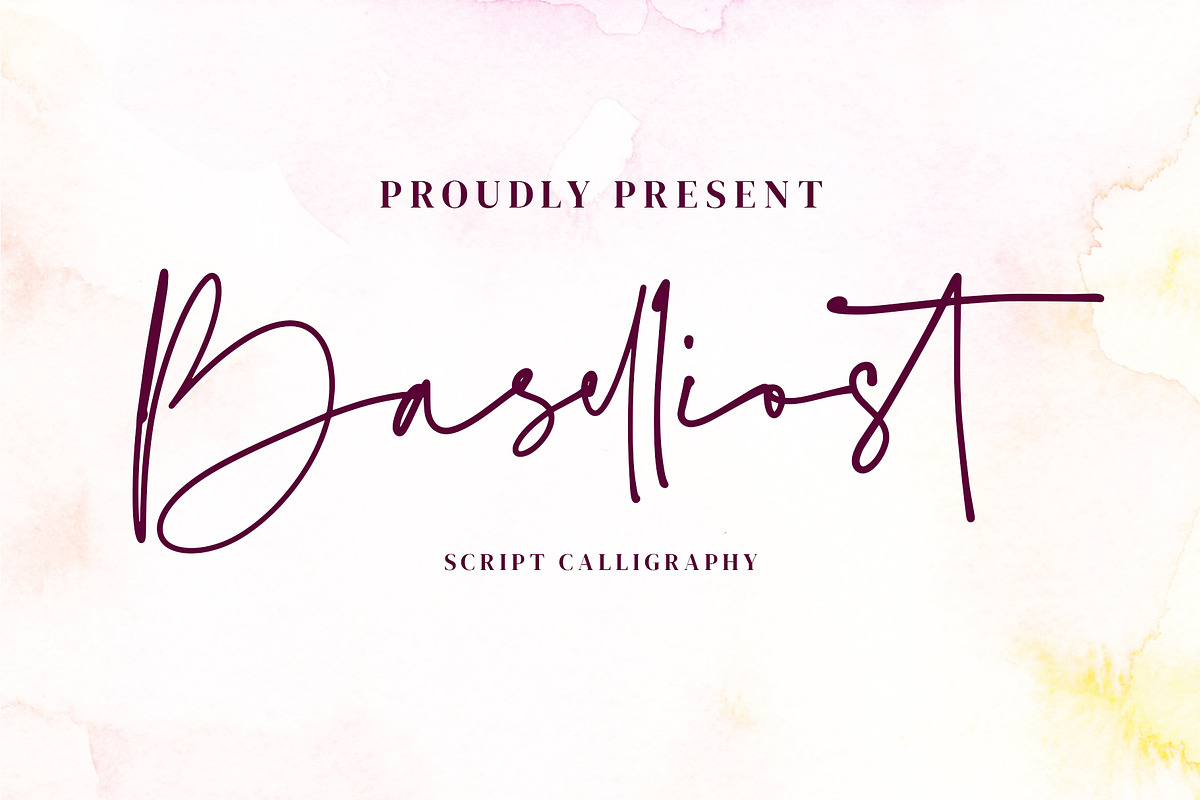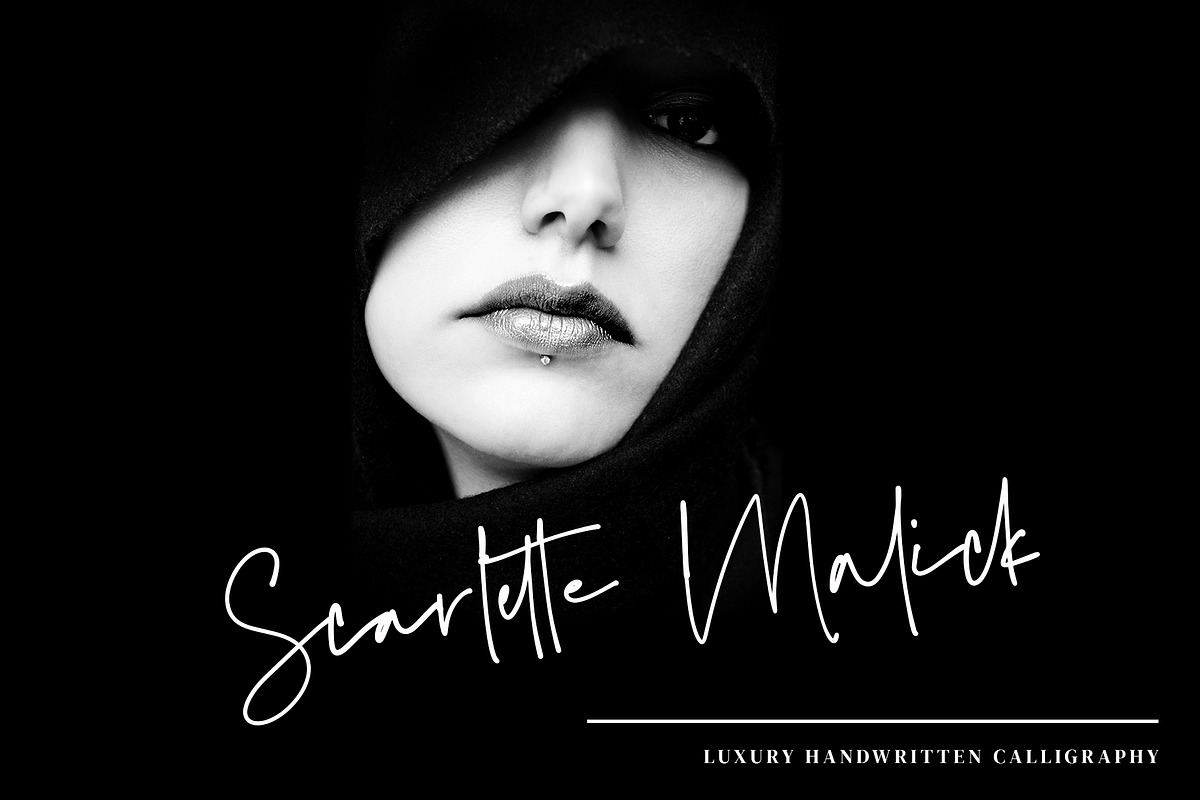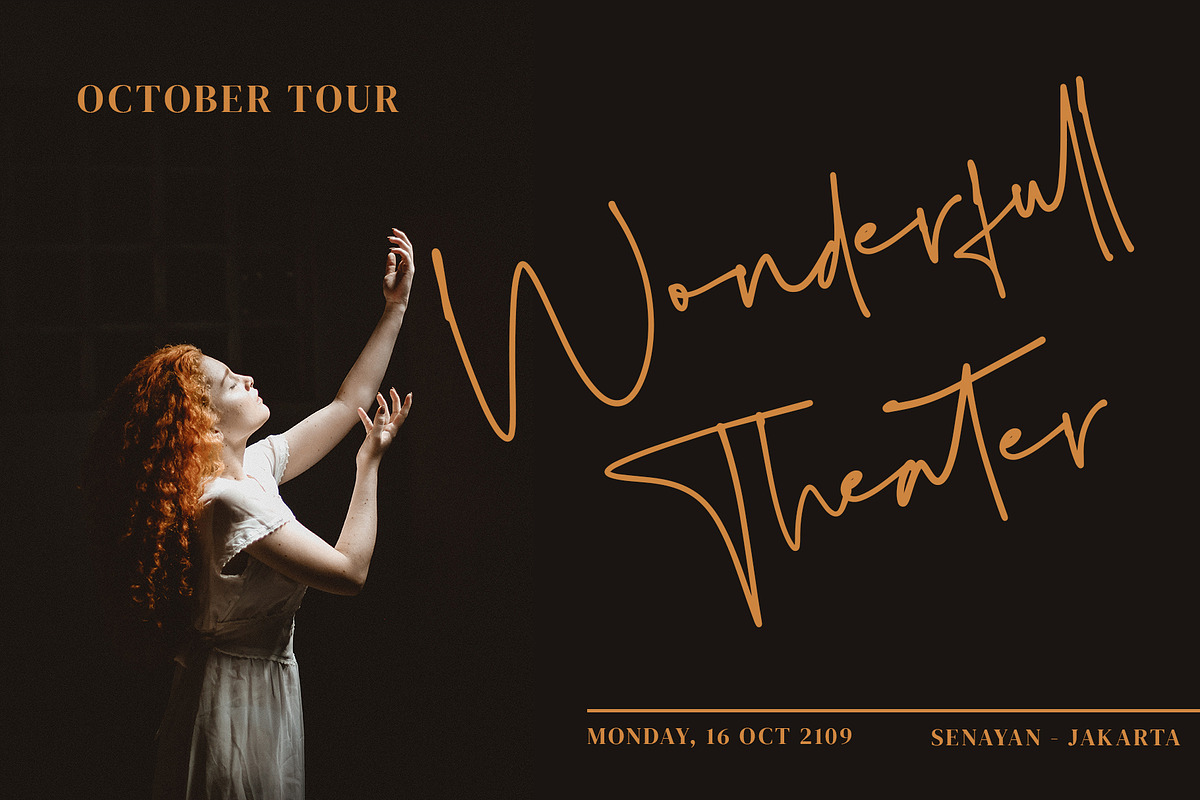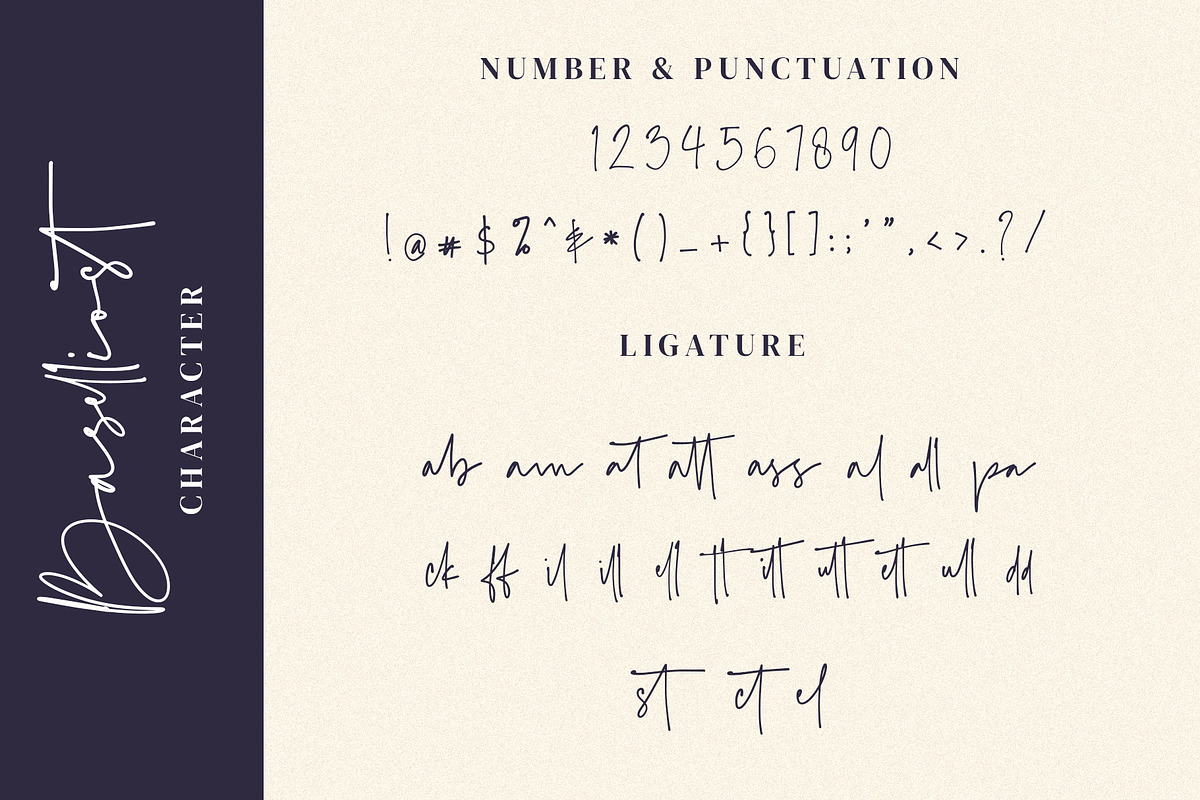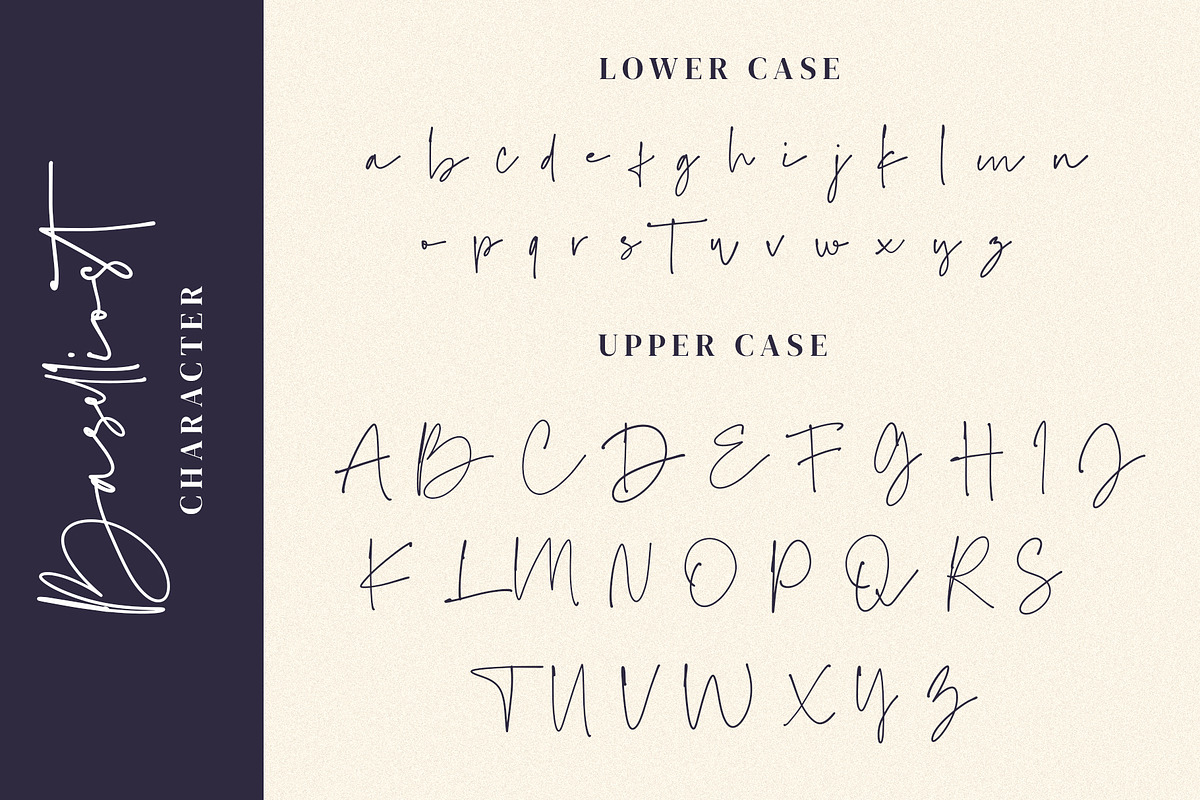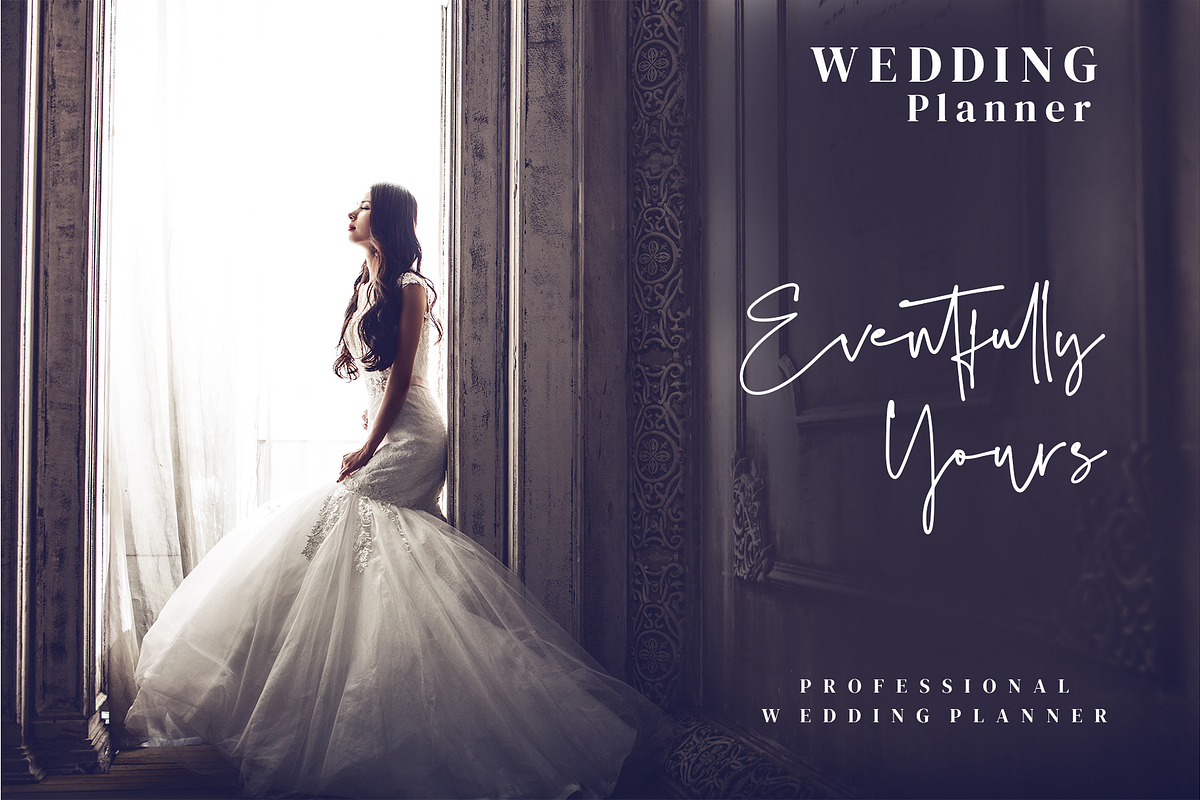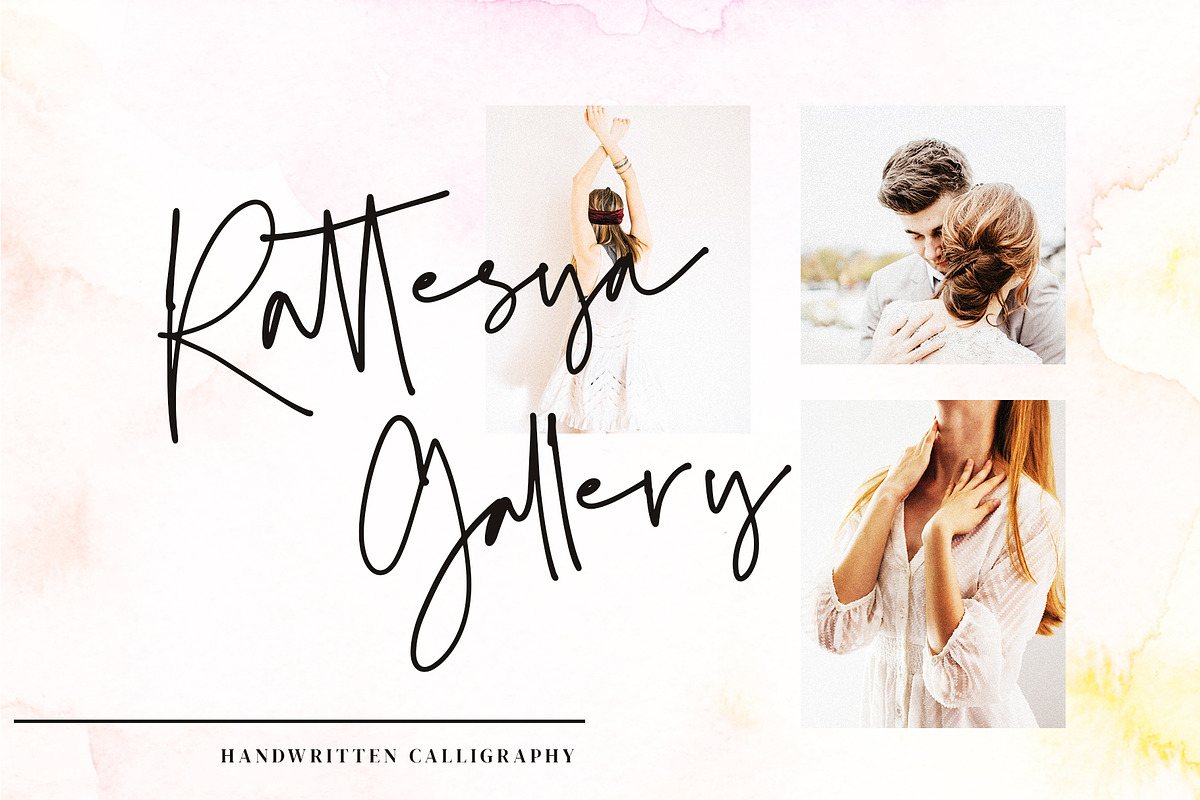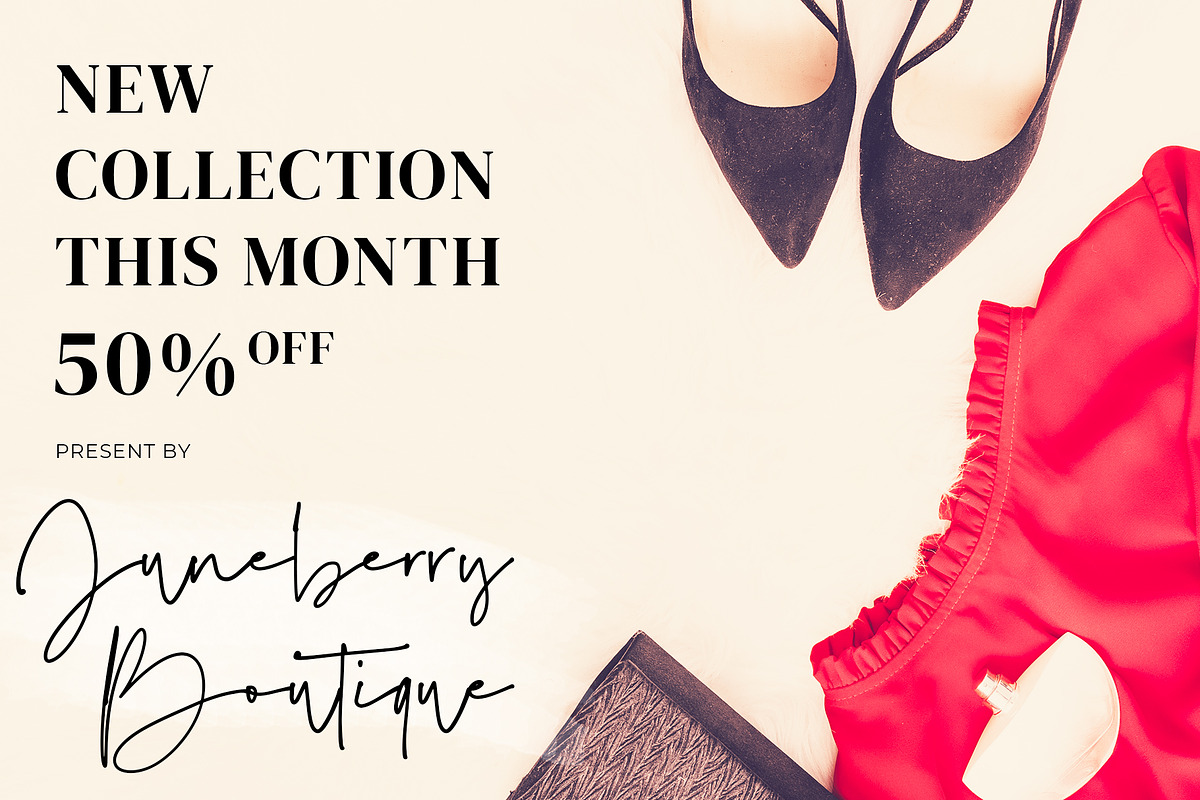
Baselliost handwritten Script font
Baselliost is an exciting handwritten font with signature style. This beautiful script can make your design project look elegant, classy, and modern.
Baselliost is perfect for branding projects, logo, wedding designs, social media posts, advertisements, product packaging, product designs, label, photography, watermark, invitation, stationery and any projects.
Baselliost handwritten Script font by Formatika Studio fits naturally into Branding, posters, packaging, typography.